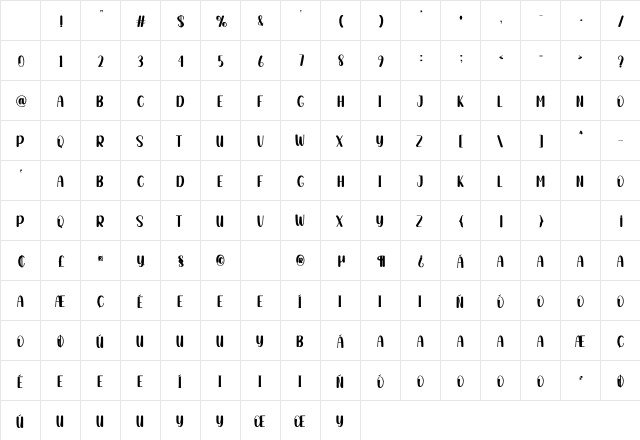
Complete Baby Sleepwear Regular glyph index. Displaying only characters natively supported by Baby Sleepwear Regular font.
Baby Sleepwear is a composed and adaptable typeface that performs quietly and consistently across a wide range of design contexts.